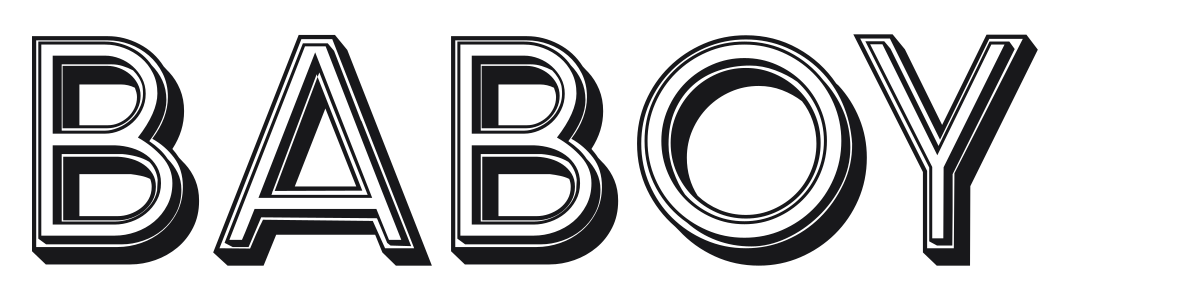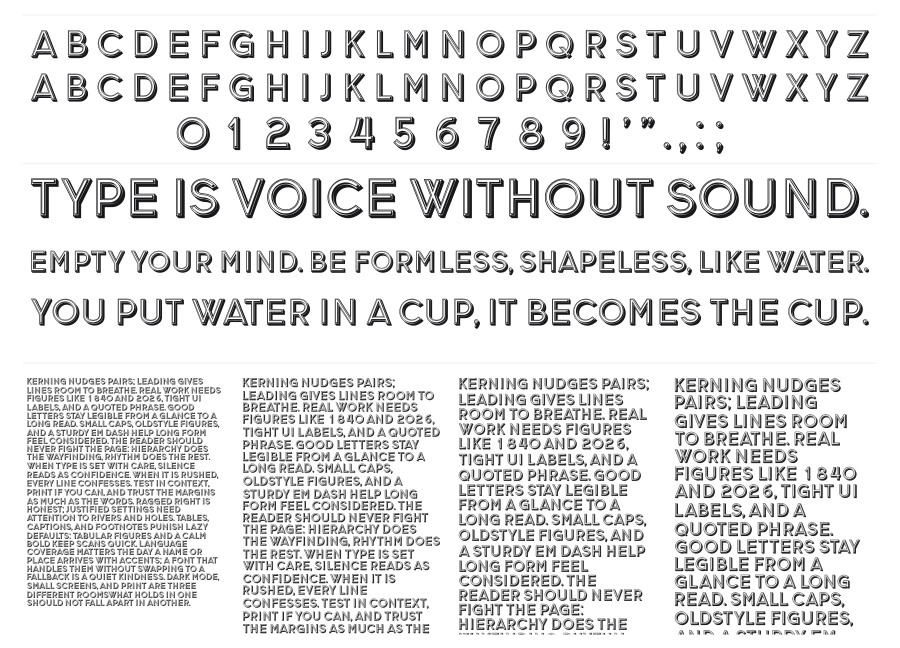
Baboy
Baboy is a bold retro sans-serif with a built-in dimensional shadow and inline detail that give it the feel of vintage hand-painted signage. The rounded terminals and near-monoweight strokes keep it friendly and approachable rather than aggressive. It thrives at large sizes where the layered depth effect really comes to life.